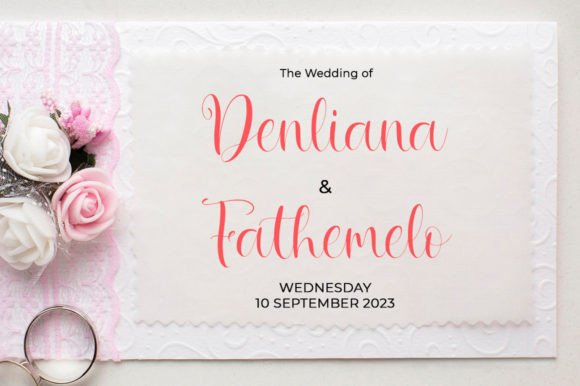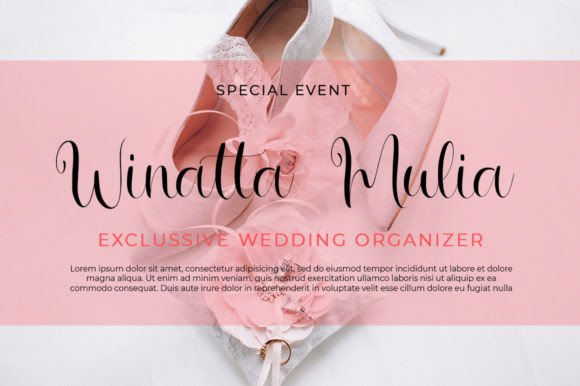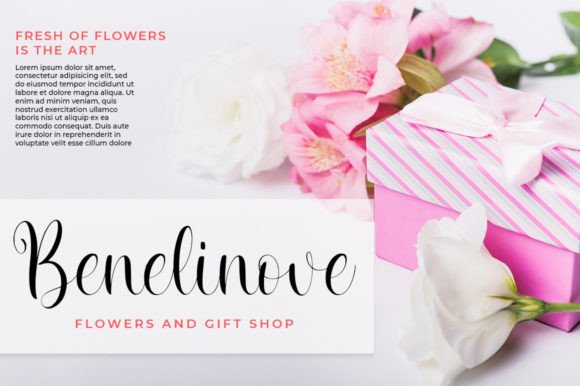
Introduction to Rimondial Font
As you sit at your desk, surrounded by scraps of paper and endless ideas, you finally find the perfect font to bring your creative project to life. It’s moments like these that make all the late nights and early mornings worth it. And for designers, there’s no better feeling than seeing their vision come together with the perfect combination of style and substance.
One font that stands out from the rest is the beautiful Rimondial Font, a masterfully crafted handwritten script that adds a touch of elegance and romance to any design. Whether you’re working on a wedding invitation, a Valentine’s Day card, or simply a personal project, Rimondial Font is the perfect design resource to make your message unforgettable.
With its high-quality design and transparent background, Rimondial Font is a free download that’s sure to elevate your designs to the next level. And with its PUA encoding, you can easily access all the glyphs and swashes you need to create a truly unique and eye-catching look.
Key Features of Rimondial Font
- High-quality design resource for creative projects, offering a unique and modern aesthetic.
- Rimondial Font features a transparent background, allowing for easy layering and customization in your creative project.
- Unique characteristics include a mix of geometric and organic elements, creating a visually striking and eye-catching effect.
- Perfect for designers and artists looking for a distinctive and high-quality design resource to elevate their creative project.
Honest Review: Rimondial Font
I recently had the chance to work with the Rimondial Font for a creative project, and I must say it’s been a pleasant experience. As a designer, I’m always on the lookout for high-quality design resources that can elevate my work.
What works well about the Rimondial Font is its sleek and modern aesthetic, perfect for a wide range of creative projects. The font is available for free download, making it an excellent resource for designers on a budget. The transparent background feature is also a bonus, allowing for seamless integration with any design.
- ✨ Elegant and sophisticated design
- ✨ High-quality font files
However, I did encounter some limitations with the Rimondial Font. The font family is relatively small, which may limit its versatility for more complex projects. Additionally, the font may not be suitable for use in body text due to its ornate design.
Overall, I’m impressed with the Rimondial Font and would recommend it for designers working on high-end creative projects. Its unique design and transparent background feature make it a valuable addition to any design resource library.
Tips for Getting the Most Out of Rimondial Font
For the best results, use Rimondial Font on a transparent background to create a clean and modern design. You can also use the font in combination with other design resources to create a unique and eye-catching project.
Rimondial Font is a versatile design resource that can be used in a variety of creative projects, including logos, business cards, brochures, and presentations. The font’s high quality and unique style make it a great choice for designers looking to add a professional touch to their work.
Can I use the Rimondial Font for a high-quality design project?
Yes, the Rimondial Font is designed to be a high-quality design resource. Its clean and modern design makes it perfect for use in creative projects, from logos and branding to digital products and print materials.
Does the Rimondial Font include a transparent background?
Yes, the Rimondial Font includes a transparent background, making it easy to use in a variety of design scenarios. This feature also allows designers to create a seamless and professional-looking design.